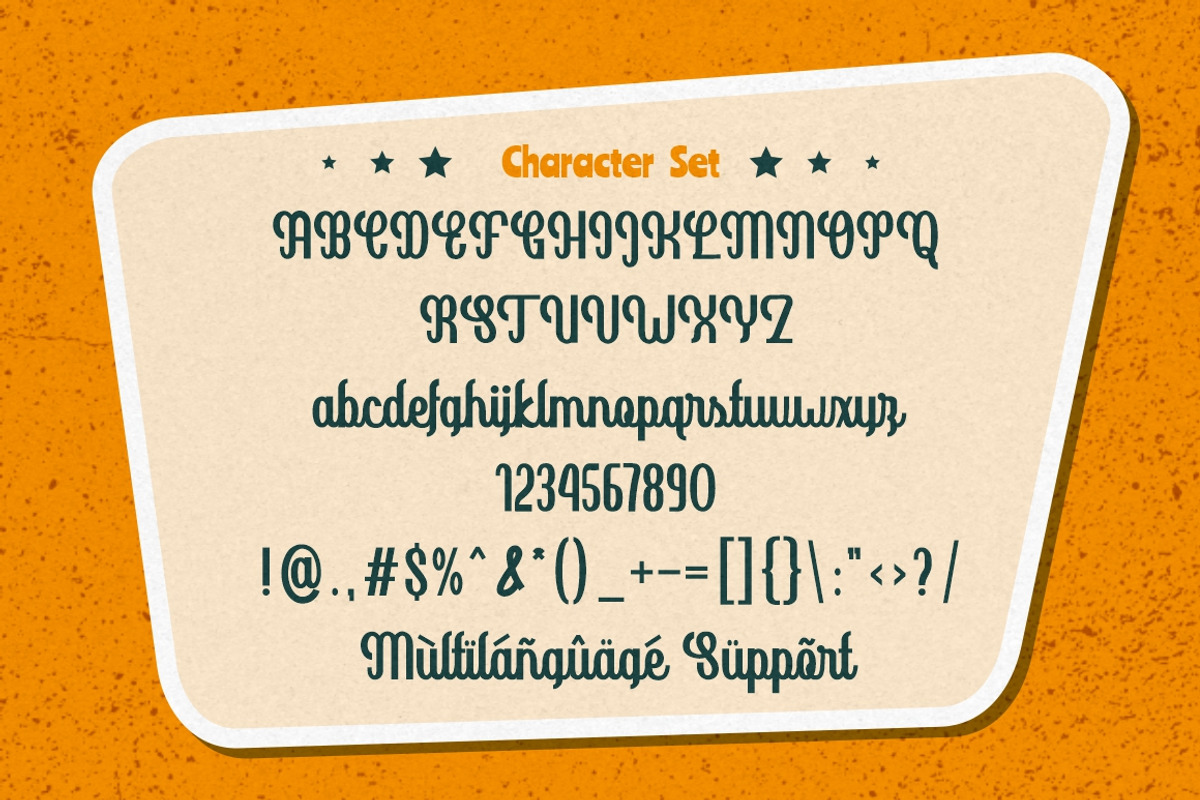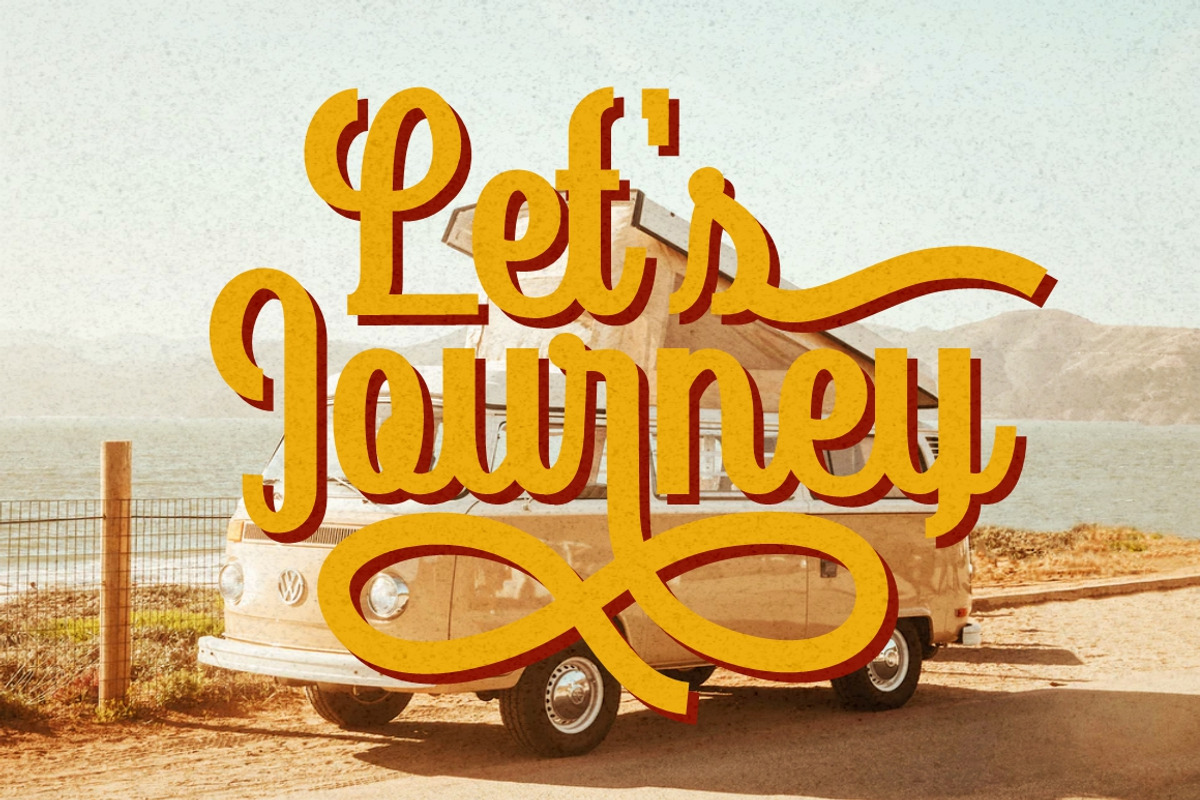
Goldenlife - Vintage Display
Goldenlife
Goldenlife is a vintage display typeface. This font inspired by the classic and vintage sign. Goldenlife is great for any kind of display purpose from logos, Tshirt, apparel, quote, handwritten quotes, product packaging, tittle header, poster, merchandise, social media, labels, branding & greeting cards. This font is also support multi language.
Comes with feature :
- Number, Punctuation And Symbols
- Multilanguage Support.